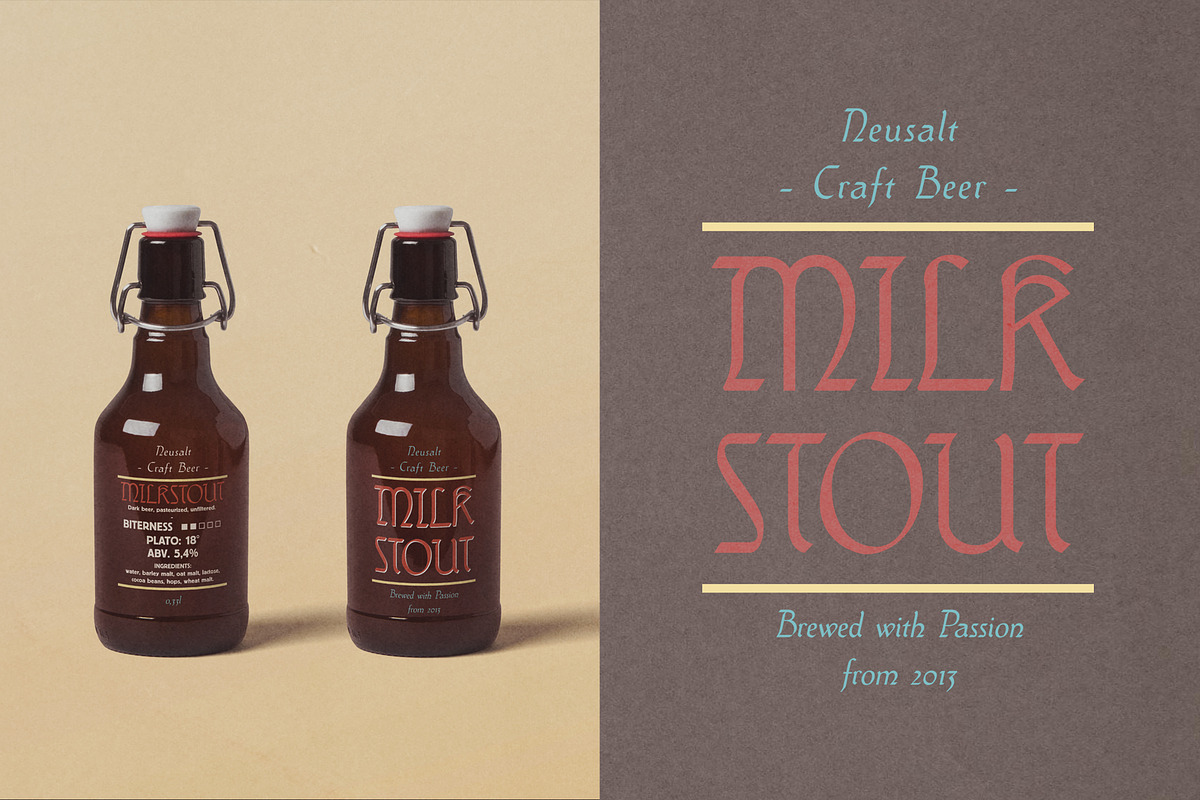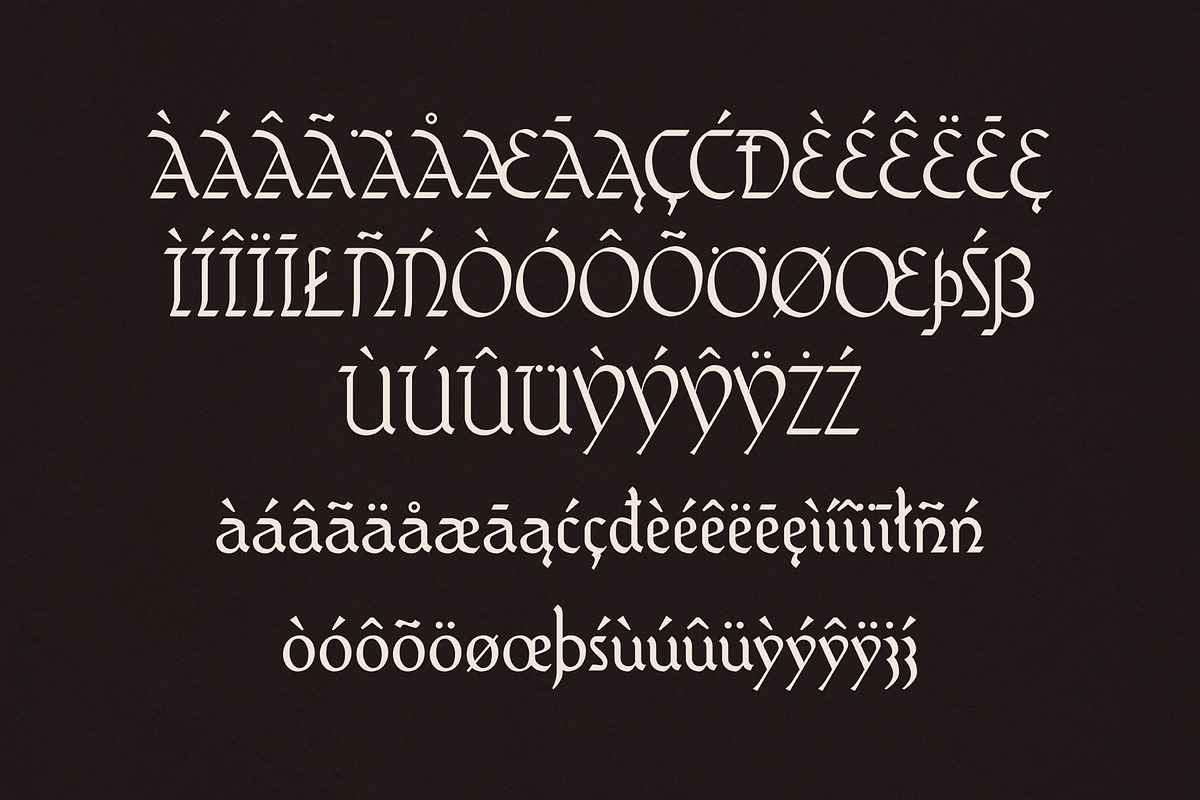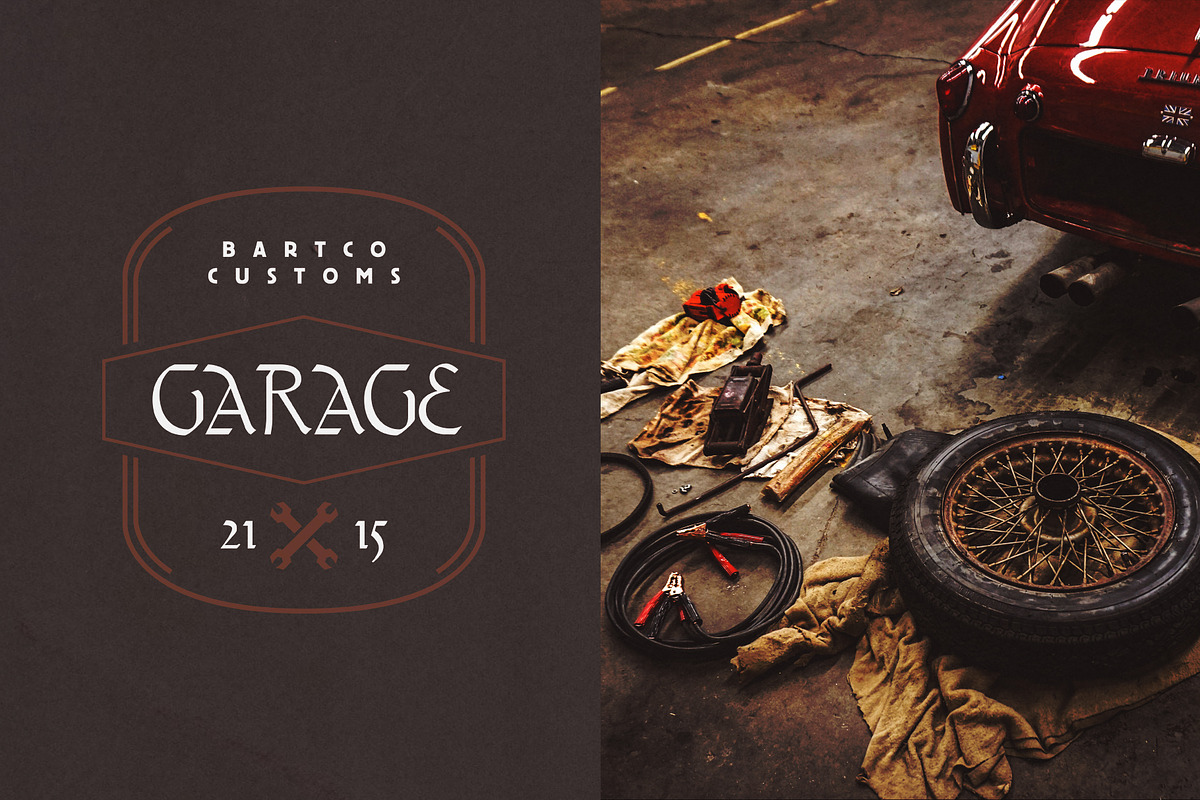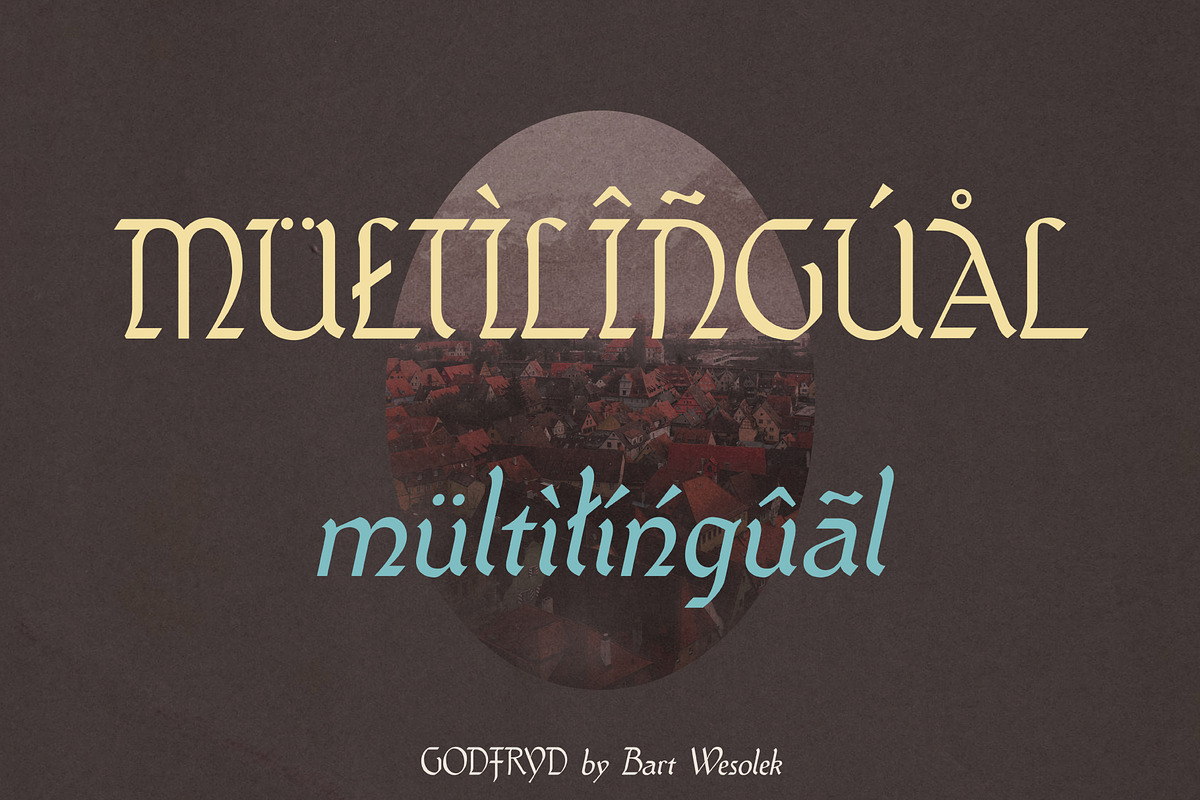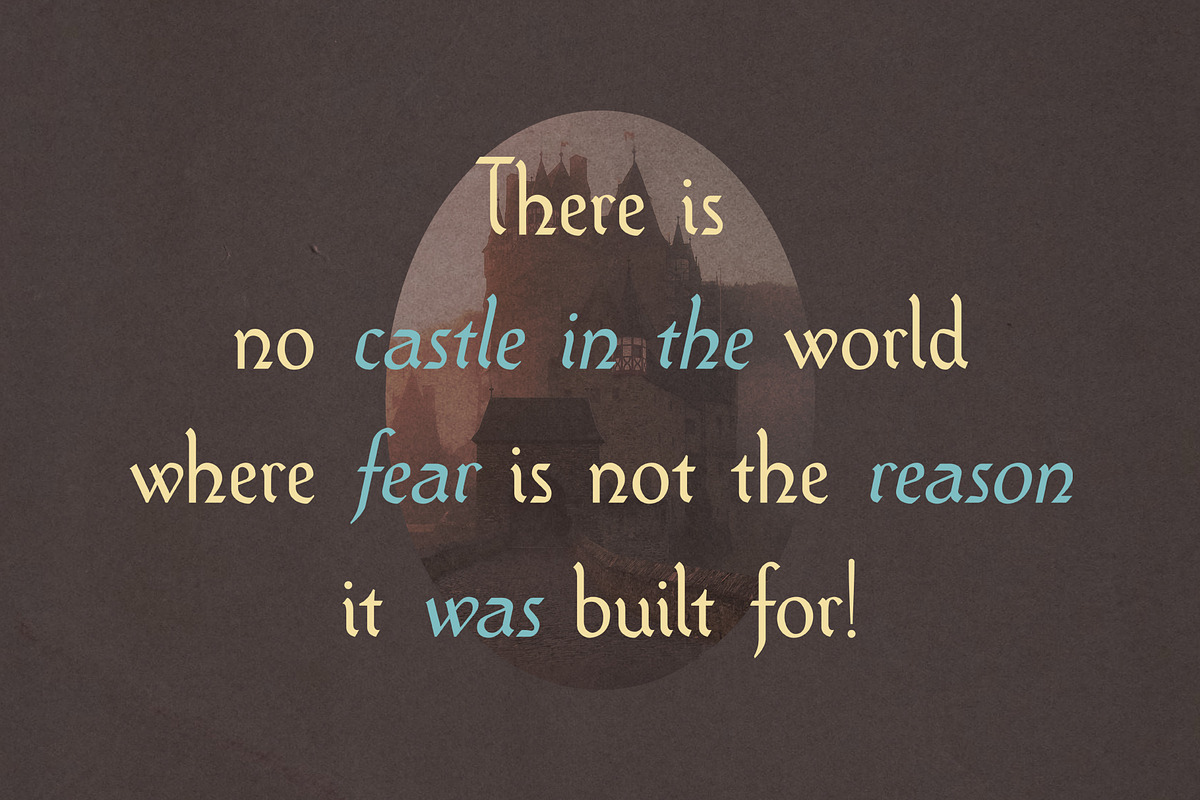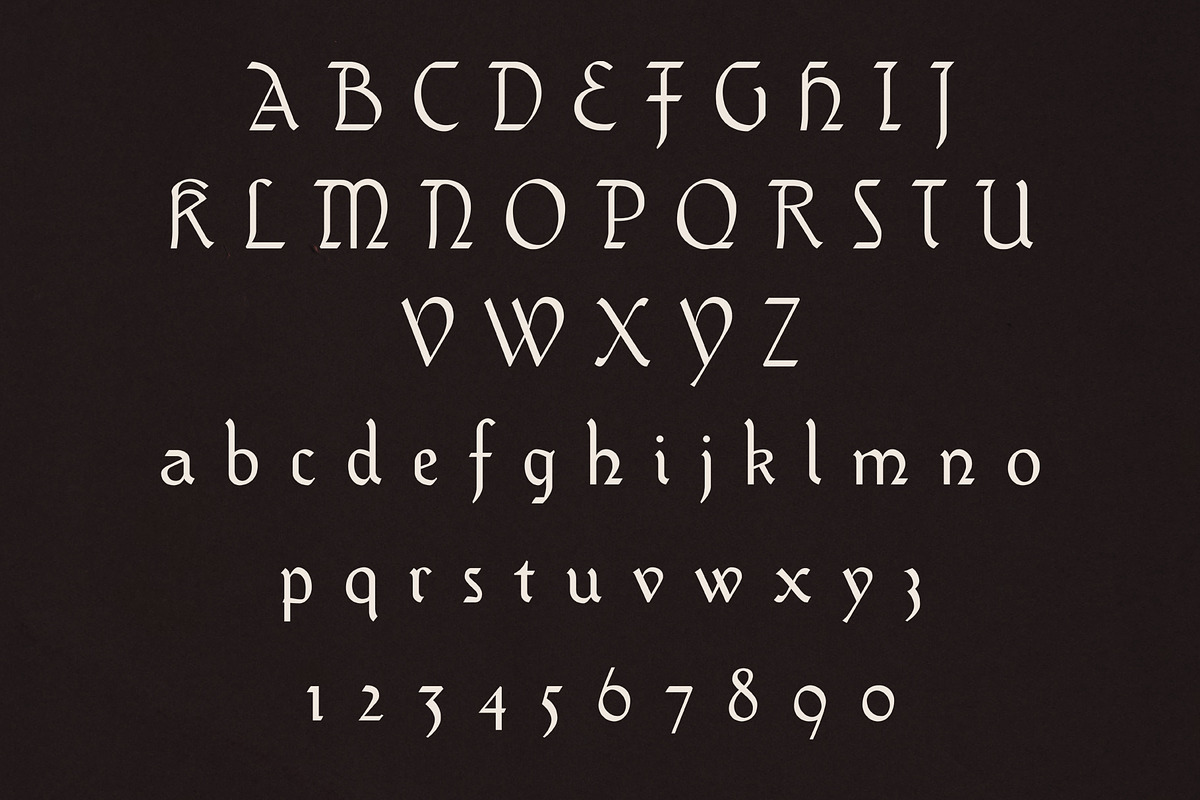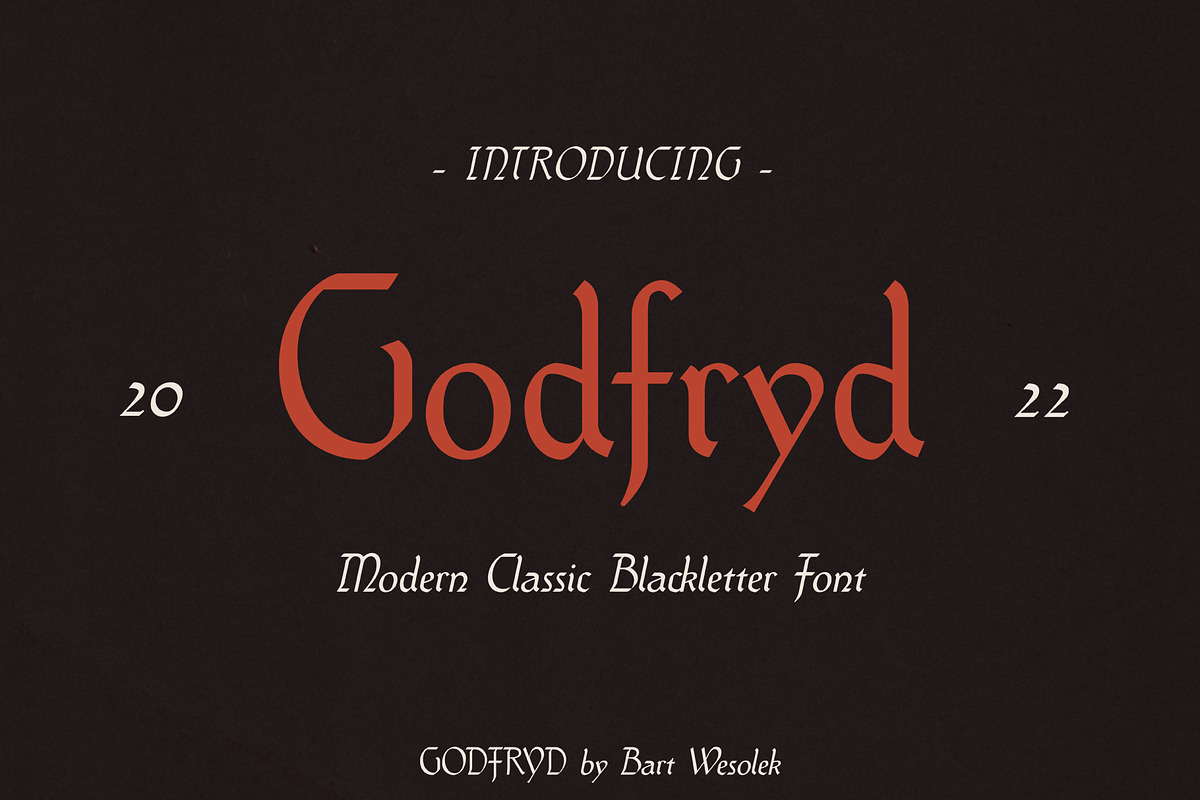
Godfryd - Modern Retro Blackletter
Godfryd is a blackletter font based on classic medieval and serif fonts. Its style is a mix between modern retro medieval fonts from XX century. Godfryd is a retro typeface with a distinct gothic personality and strong historical roots. Its decorative letterforms bring dramatic flair to headlines, logos, posters, and branding projects that need a touch of medieval elegance. With its fully supported Latin character set, Godfryd works beautifully for multilingual designs. Combine it with aged parchment textures, distressed paper, or grunge overlays to emphasize its vintage feel, or contrast it with modern sans-serif fonts for a striking typographic hierarchy. Use Godfryd for book covers, tattoo design, packaging, or event branding to inject timeless craftsmanship and bold presence into your work.
Godfryd comes with 2 styles:
- regular
- kursiv
Language support: ÀÁÂÃÄÅĀĄ Æ ĆÇ ÈÉÊËĒĘ ÌÍÎÏĪ Ð Ł ŃÑ ÒÓÔÕÖŒØ Ś ÙÚÛÜ ỲÝŶŸ ŻŹ Þß àáâãäåāą æ ćç èéêëēę ìíîïī ð ńñ òóôõöœø ś ùúûü ỳýŷÿ żź þ